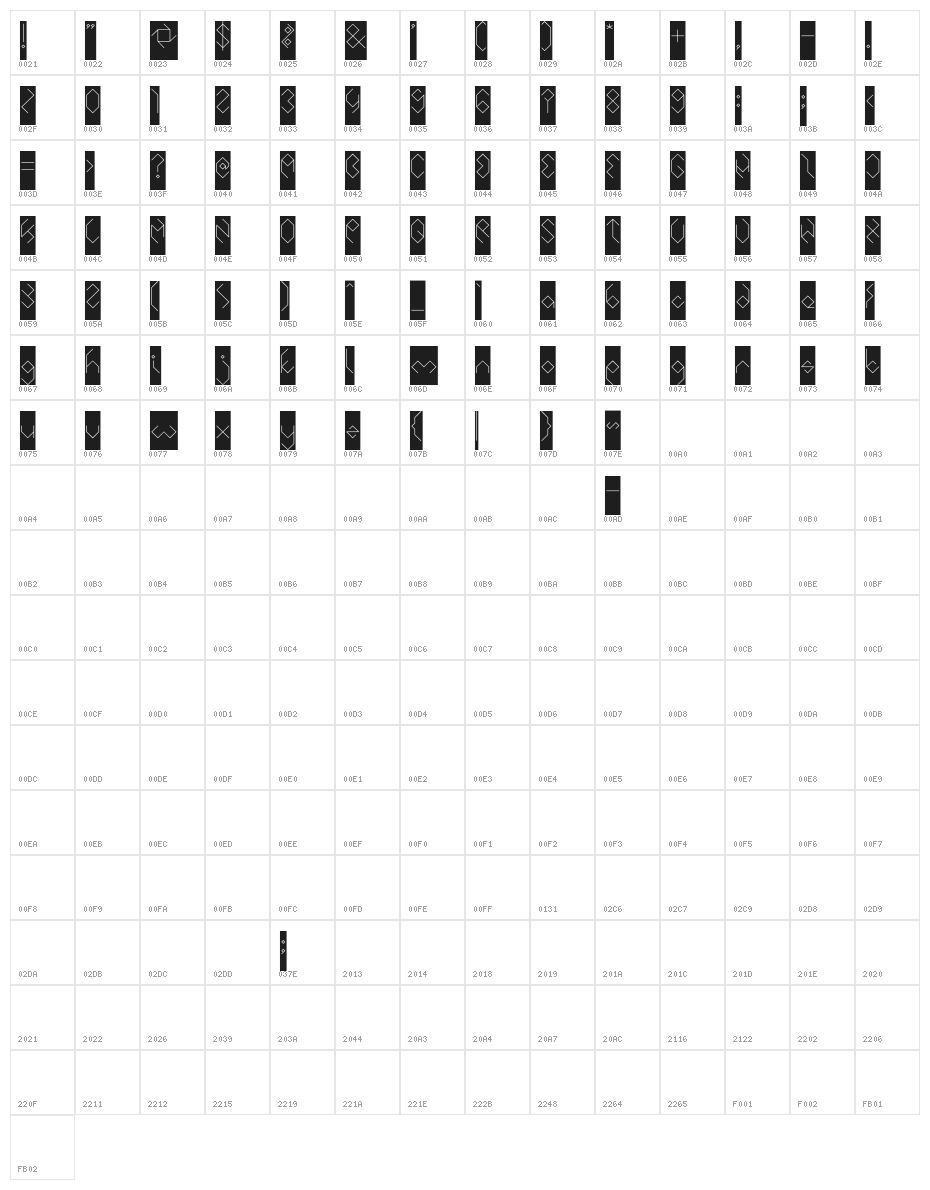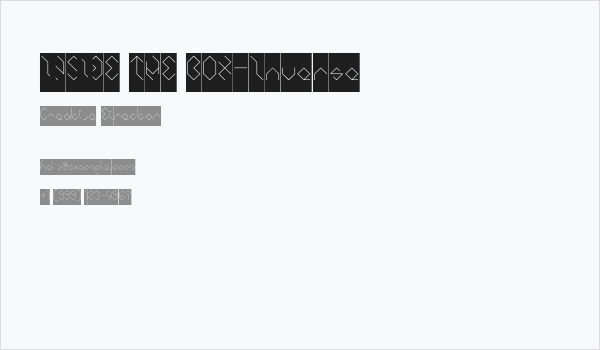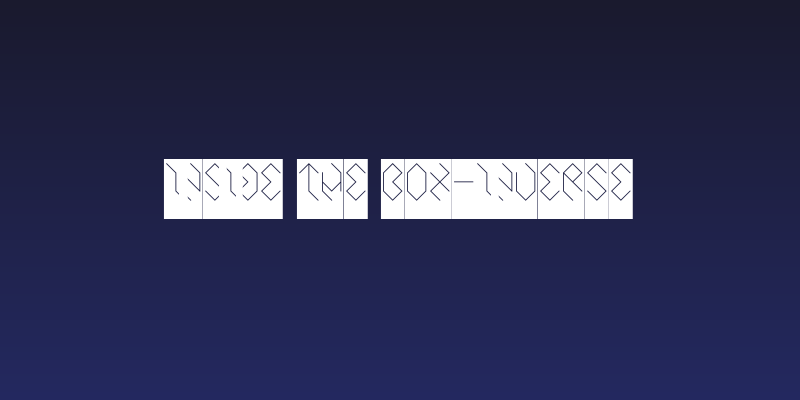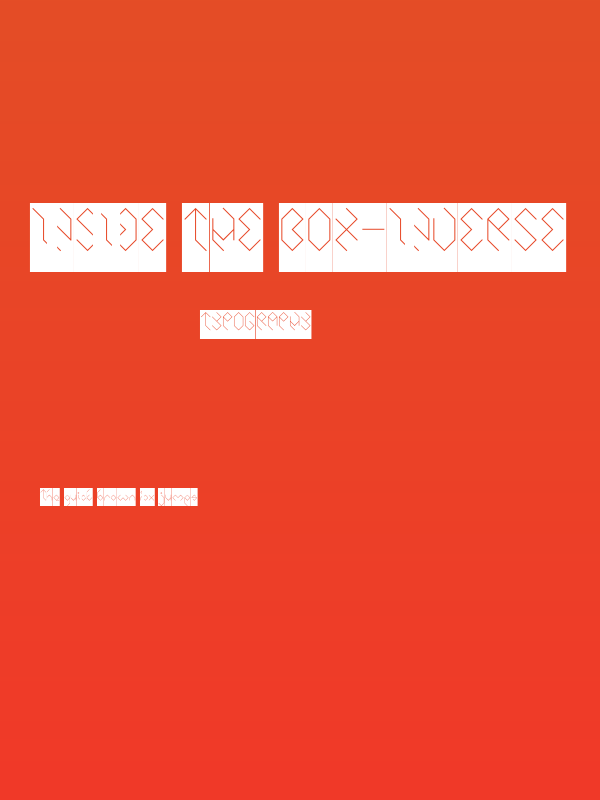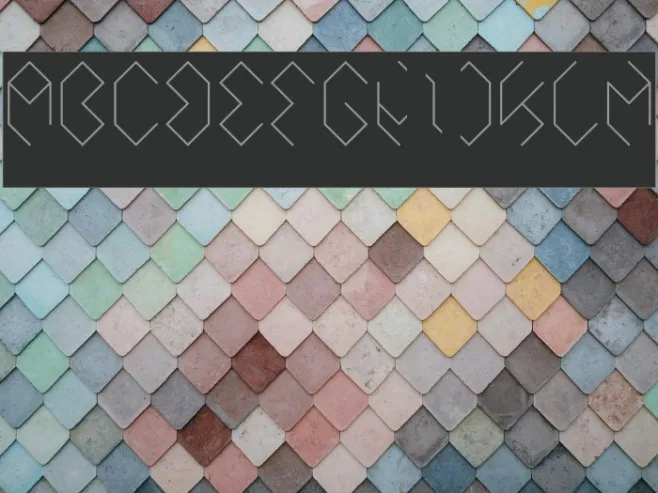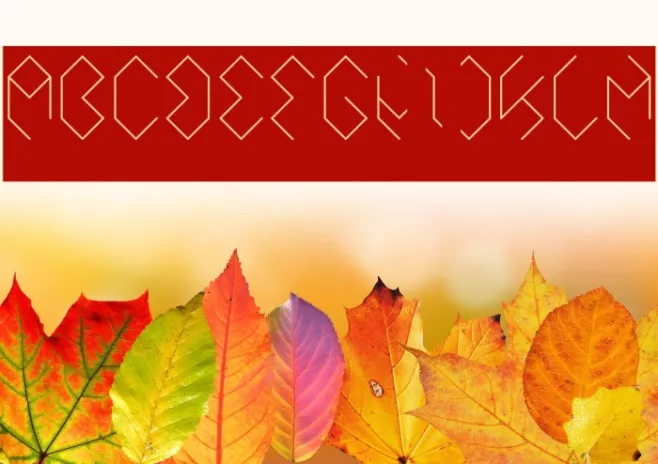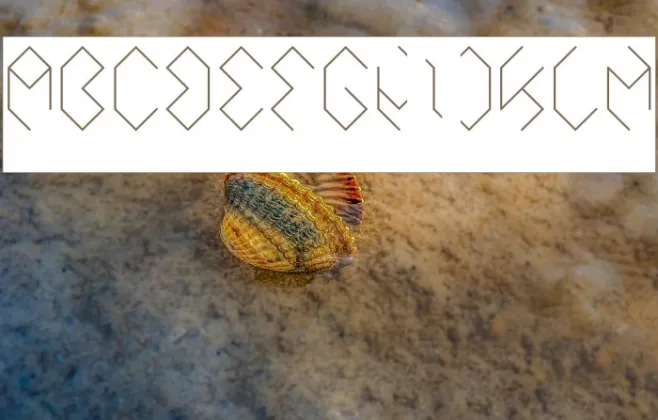
INSIDE THE BOX-Inverse Font
INSIDE THE BOX-Inverse Description
This font features a unique geometric design with angular lines and sharp edges, creating a futuristic and digital aesthetic. Each character is constructed with a series of straight lines and angles, giving it a highly structured and modern appearance. The uppercase and lowercase letters maintain a consistent style, with a focus on symmetry and precision. The numerals and special characters follow the same design principles, ensuring a cohesive look across all elements. This font's distinct style makes it stand out, offering a bold and innovative look that is both eye-catching and memorable.
| Proposed Projects | Ideal for tech-related branding, digital art projects, sci-fi themed designs, and modern posters. |